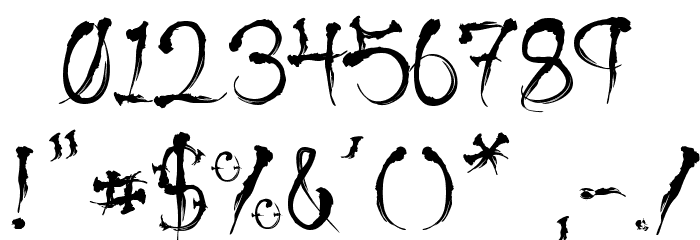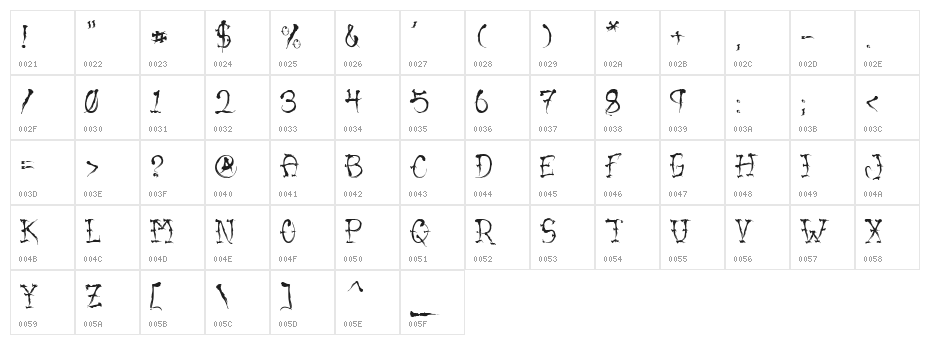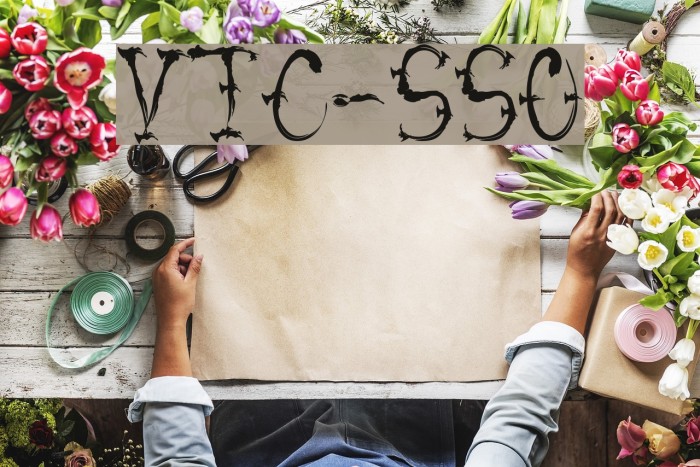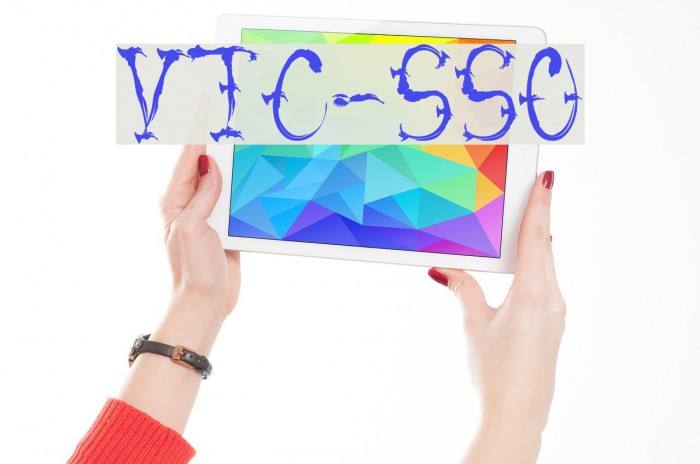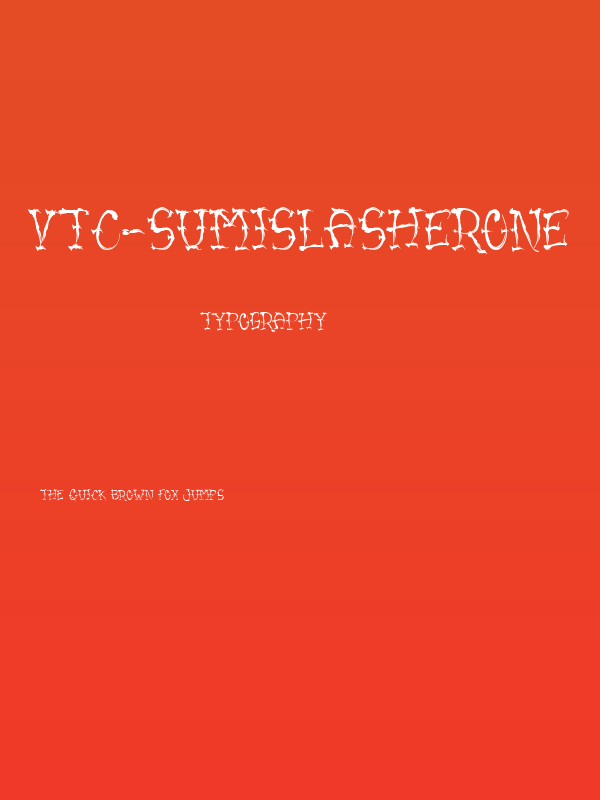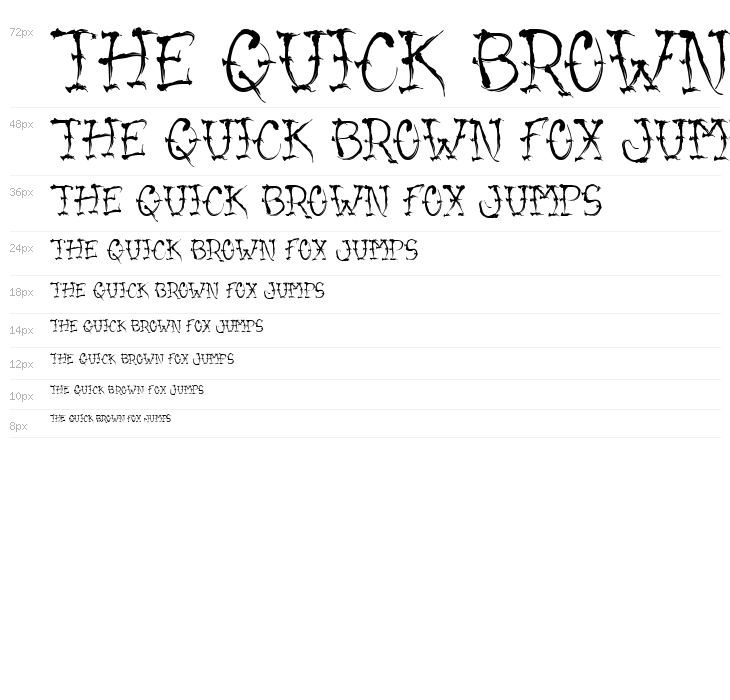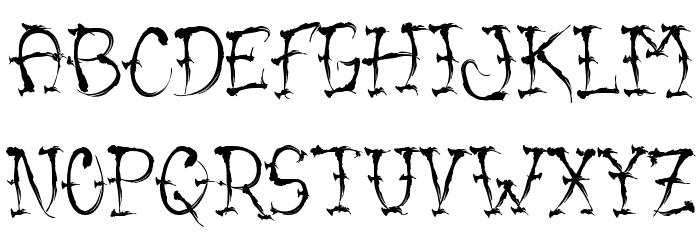
VTC-SumiSlasherOne Font
VTC-SumiSlasherOne Description
This font features a highly decorative and edgy style, characterized by sharp, thorn-like extensions and irregular strokes that give it a dramatic and intense appearance. The letters are bold and have a hand-drawn quality, with each character exhibiting unique, jagged embellishments that create a sense of movement and energy. The overall design is reminiscent of gothic or horror themes, making it ideal for projects that require a striking and unconventional look. The numerals and special characters maintain the same stylistic elements, ensuring consistency across all text elements.
| Proposed Projects | Ideal for horror-themed posters, album covers, Halloween invitations, or any project needing a dramatic and unconventional typeface. |